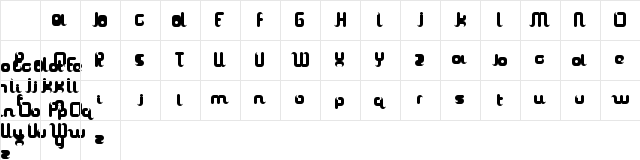
TheaSanti Regular
| Designer | itstheasantiago |
Design Context for TheaSanti Typeface
TheaSanti offers clean, dependable letterforms without strong stylistic allegiance, making it a practical choice for designers who need flexibility.
Pro Tip: Pair TheaSanti with a font of contrasting weight or personality to build a more expressive typographic hierarchy.